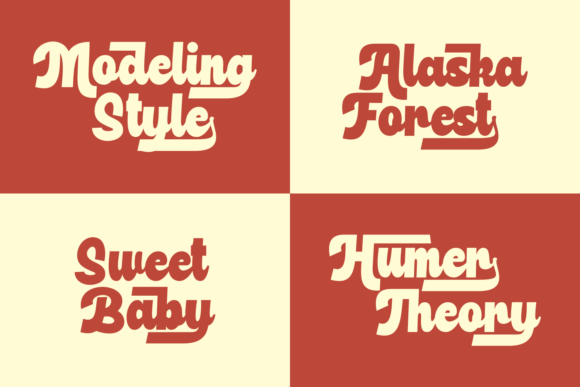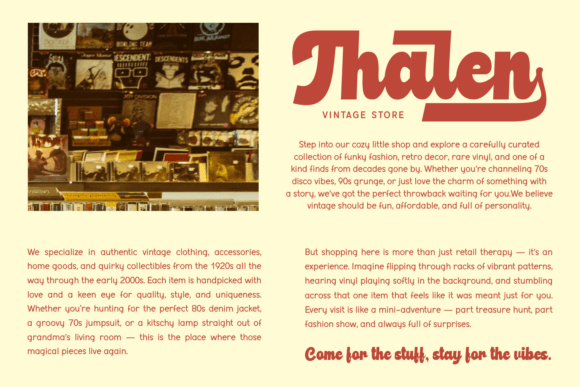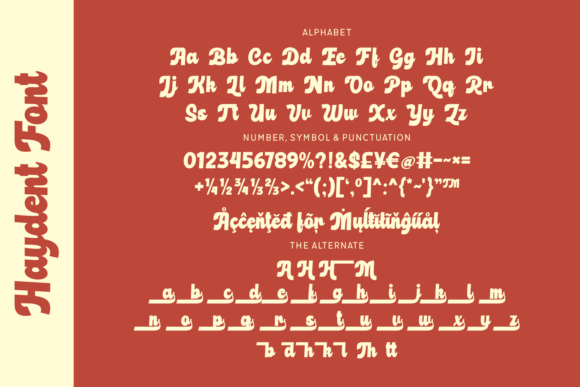
Introducing Haydent Font: The Ultimate Vintage-Inspired Bold Script Font
Are you tired of using the same old fonts for your designs? Look no further than Haydent Font, a vintage-inspired bold script font that blends retro charm with modern swagger. With its strong curves, thick strokes, and creative ligatures, Haydent is perfect for designers and crafters who want to add a touch of nostalgia to their branding, apparel, posters, and signage.
A Font that Exudes Confidence and Personality
Haydent Font is not just a font, it’s an attitude. Its bold and daring design makes it perfect for headlines, titles, and statements that demand attention. The font’s vintage inspiration gives it a unique character that sets it apart from more modern fonts, while its modern swagger ensures it remains fresh and relevant. Whether you’re designing a logo, a poster, or a t-shirt, Haydent Font is sure to make a statement.
Key Features of Haydent Font
- Strong Curves and Thick Strokes: Haydent Font features strong curves and thick strokes that give it a bold and confident look.
- Creative Ligatures: The font includes creative ligatures that add a touch of elegance and sophistication to your designs.
- Built-in Alternates and Swashes: Haydent Font comes with built-in alternates and swashes that offer versatility and a punchy personality to every design.
- Vintage-Inspired: The font’s vintage inspiration gives it a unique character that sets it apart from more modern fonts.
- Modern Swagger: Despite its vintage inspiration, Haydent Font has a modern swagger that ensures it remains fresh and relevant.
Haydent Font is perfect for designers and crafters who want to add a touch of nostalgia to their designs. Whether you’re creating branding materials, apparel, posters, or signage, Haydent Font is sure to make a statement. The font’s versatility and range of features make it suitable for a wide range of design projects, from bold and daring headlines to elegant and sophisticated body copy.
Use Cases for Haydent Font
- Branding: Use Haydent Font to create bold and memorable logos that make a statement.
- Apparel: Add a touch of nostalgia to your t-shirt designs, hoodies, and other apparel with Haydent Font.
- Posters: Create eye-catching posters that demand attention with Haydent Font.
- Signage: Use Haydent Font to create bold and easy-to-read signage that makes a statement.
Why Choose Haydent Font?
With so many fonts available, why choose Haydent Font? Here are just a few reasons:
- Unique Character: Haydent Font has a unique character that sets it apart from more modern fonts.
- Versatility: The font’s built-in alternates and swashes offer versatility and a punchy personality to every design.
- Easy to Read: Despite its bold design, Haydent Font is easy to read, making it perfect for body copy and headlines.
- High-Quality Design: Haydent Font is designed to the highest standards, ensuring it looks great in any design.
Haydent Font is a vintage-inspired bold script font that blends retro charm with modern swagger. With its strong curves, thick strokes, and creative ligatures, this font is perfect for designers and crafters who want to add a touch of nostalgia to their designs. Whether you’re creating branding materials, apparel, posters, or signage, Haydent Font is sure to make a statement. So why wait? Try Haydent Font today and add a touch of vintage charm to your designs!